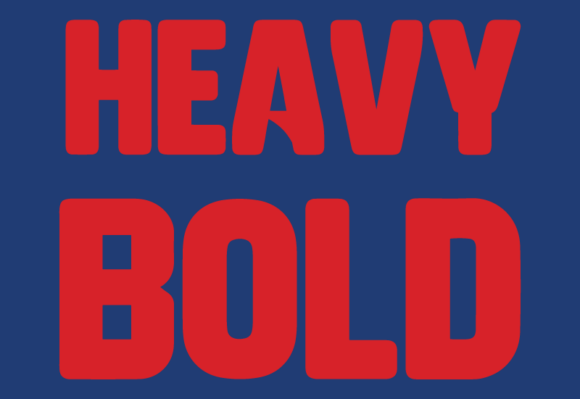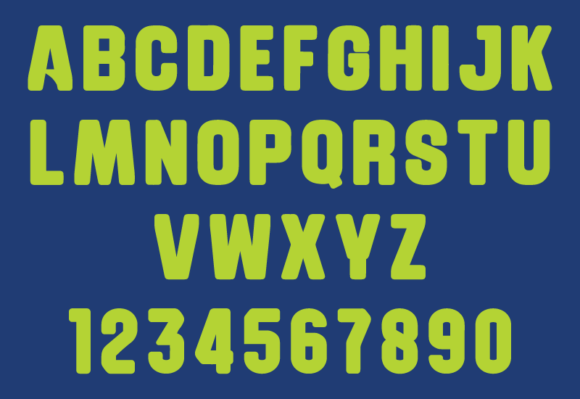
Unleash the Power of Heavy Bold Font in Your Design Projects
In the world of typography, the right font can make all the difference in elevating your design projects from ordinary to extraordinary. If you’re looking for a typeface that exudes a raw, edgy aesthetic and demands attention, look no further than the “Heavy Bold” font. This versatile and powerful font is perfect for adding character to your designs, and its clean lines and bold strokes create a distinctive visual impact that sets it apart from other fonts.
The Characteristics of Heavy Bold Font
The “Heavy Bold” font is a typeface that is characterized by its bold and sturdy appearance. Its clean lines and bold strokes give it a distinctive look that is both simple and powerful. The font’s heavy weight makes it perfect for use in headlines, logos, and other design elements where you want to make a statement. The font’s simplicity also makes it easy to read, even at smaller sizes, which makes it a versatile choice for a wide range of design projects.
The Benefits of Using Heavy Bold Font
So why should you choose the “Heavy Bold” font for your design projects? Here are just a few benefits of using this powerful typeface:
- Attention-grabbing: The “Heavy Bold” font is designed to grab attention and make a statement. Its bold and sturdy appearance makes it perfect for use in headlines, logos, and other design elements where you want to draw the eye.
- Versatile: The “Heavy Bold” font is a versatile typeface that can be used in a wide range of design projects, from logos and branding to posters and flyers.
- Easy to read: Despite its bold appearance, the “Heavy Bold” font is easy to read, even at smaller sizes. This makes it a great choice for use in body text, as well as headlines and titles.
- Customizable: The “Heavy Bold” font can be customized to fit your design needs. You can adjust the font size, color, and style to create a unique look that sets your design apart.
How to Use Heavy Bold Font in Your Design Projects
So how can you use the “Heavy Bold” font in your design projects? Here are a few ideas to get you started:
- Logos and branding: The “Heavy Bold” font is perfect for use in logos and branding, where you want to make a bold statement and create a lasting impression.
- Headlines and titles: Use the “Heavy Bold” font to create attention-grabbing headlines and titles that draw the eye and grab attention.
- Posters and flyers: The “Heavy Bold” font is a great choice for use in posters and flyers, where you want to create a bold and eye-catching design that stands out.
- Web design: The “Heavy Bold” font can also be used in web design, where you want to create a bold and attention-grabbing design that draws the eye.
Tips for Pairing Heavy Bold Font with Other Fonts
When using the “Heavy Bold” font in your design projects, it’s often a good idea to pair it with other fonts to create a cohesive and visually appealing design. Here are a few tips for pairing the “Heavy Bold” font with other fonts:
- Choose a contrasting font: Pair the “Heavy Bold” font with a contrasting font that has a different style or weight. This will create a visually appealing contrast that adds interest to your design.
- Consider a serif font: Pairing the “Heavy Bold” font with a serif font can create a nice contrast between the bold and sturdy appearance of the “Heavy Bold” font and the more traditional look of the serif font.
- Experiment with different font combinations: Don’t be afraid to experiment with different font combinations to find the one that works best for your design project.
In conclusion, the “Heavy Bold” font is a powerful and versatile typeface that is perfect for adding character to your design projects. Its clean lines and bold strokes create a distinctive visual impact that sets it apart from other fonts. Whether you’re looking to create a bold and attention-grabbing logo, headline, or design element, the “Heavy Bold” font is a great choice. With its ease of use, customizability, and versatility, this font is sure to become a staple in your design toolkit.